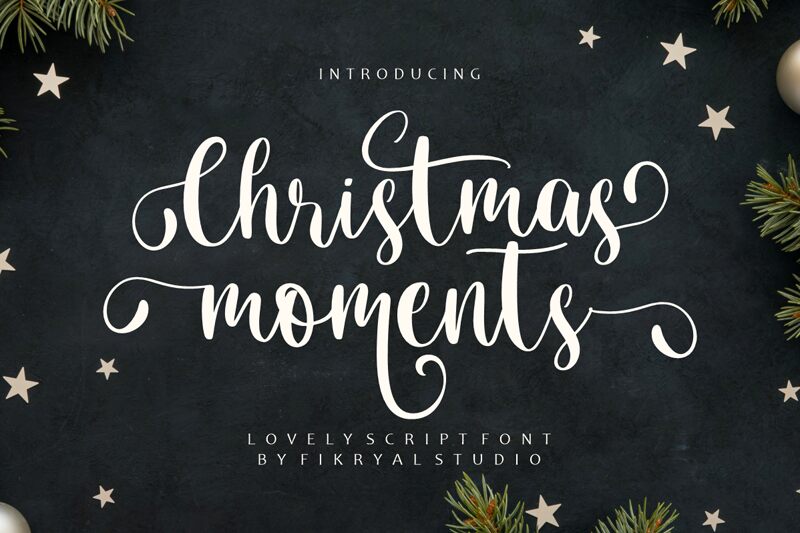
Christmas Moments is a stunning calligraphy font designed by Muhamad Fikry Nuralif. Its unique style is perfect for creating beautiful holiday-themed projects, such as greeting cards, banners, and gift tags. It also adds a luxurious touch to logos and branding designs.